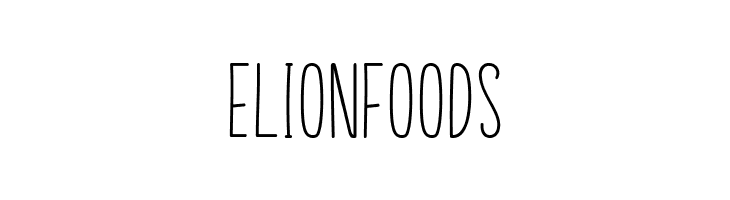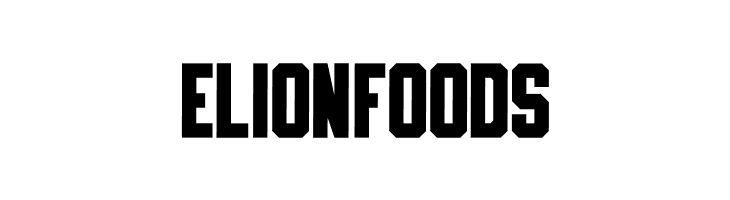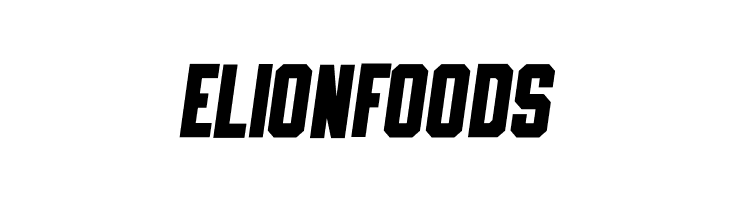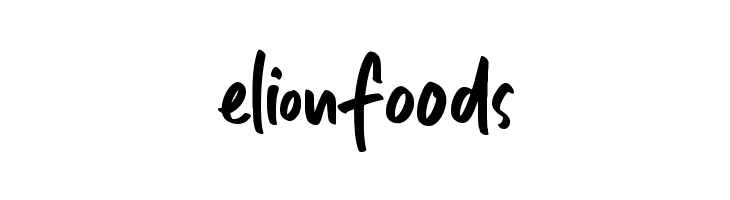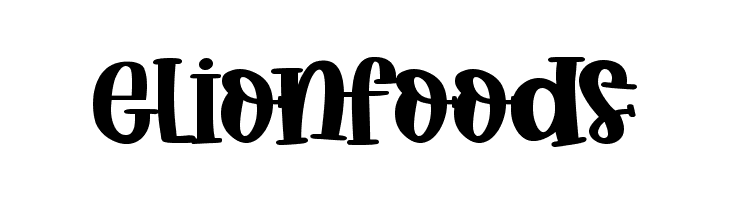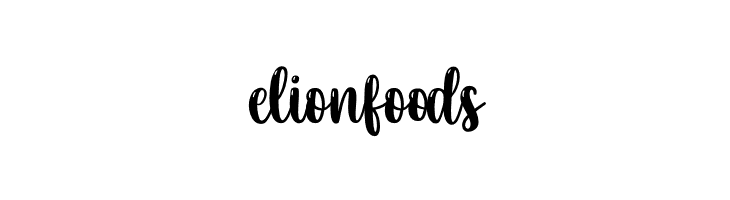
A tall, slender, and playful handwritten font with a modern touch.
An elegant cursive font with graceful curves and artistic flourishes.
A playful, hand-drawn font with rounded, bold characters.
A playful, casual handwritten font with fluid, expressive strokes.
A bold, geometric font with strong, angular lines ideal for impactful text.
A bold, italicized font with a dynamic and modern style.
A bold, playful handwritten font with dynamic strokes and a casual style.
A playful, bold font with a hand-drawn, whimsical style.
A festive, cursive script font with bold, flowing strokes and elegant connections.
A playful, handwritten font with tall, narrow letterforms and whimsical strokes.